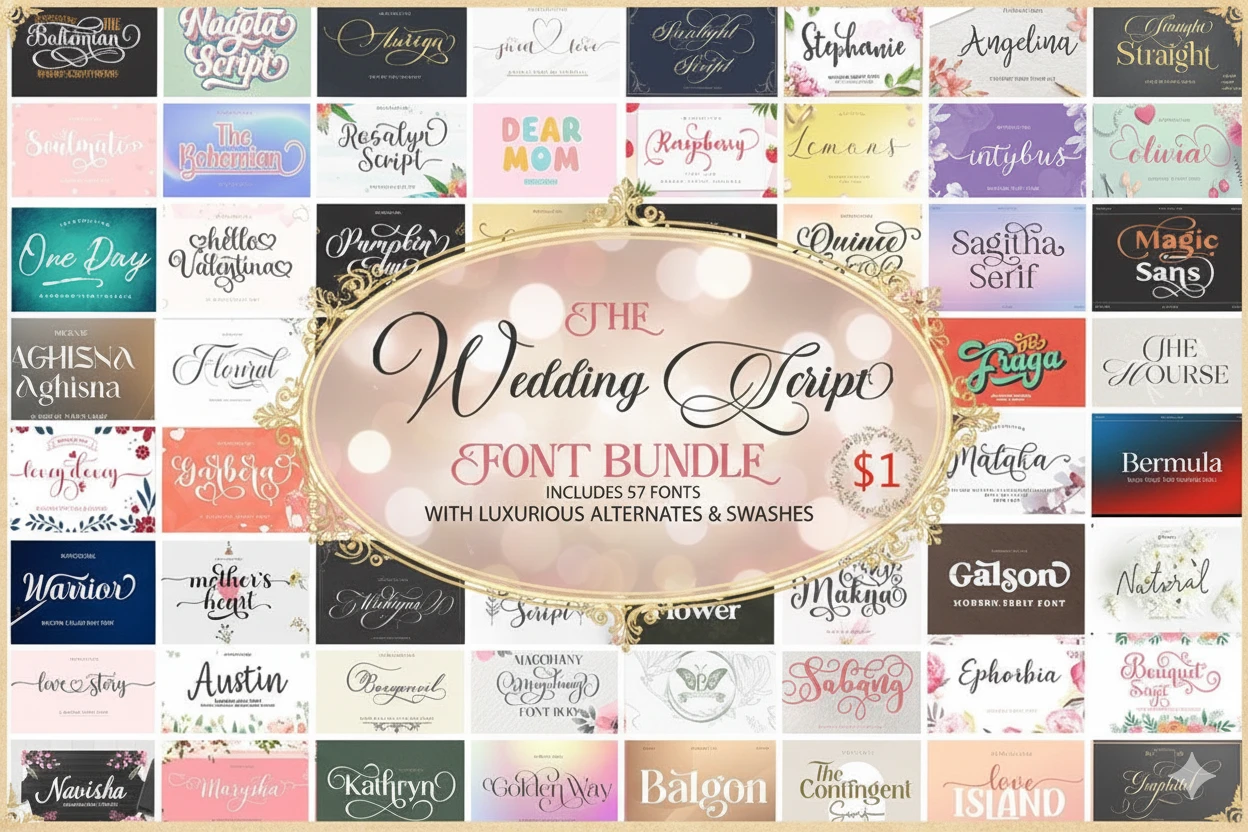
The Wedding Script Font Bundle – 57 Elegant Script Fonts
There’s something about wedding script fonts that instantly changes the mood of a design. Even a simple invitation layout can feel much more personal once you swap in the right lettering style. After going through this bundle, that was honestly the first thing I noticed — the fonts don’t feel overly artificial or too polished the way many large font packs do.
The Wedding Script Font Bundle includes 57 elegant script fonts designed for wedding invitations, branding, social media graphics, logo work, signage, packaging, and romantic typography projects.
What makes this collection stand out a bit more is the variety.
The bundle also includes:
- Elegant alternates
- Decorative swashes
- Smooth handwritten styles
- Classic calligraphy-inspired lettering
One detail I appreciated is that the fonts don’t all follow the exact same rhythm. In many large bundles, you end up with 40 fonts that basically look identical after a while. Here, some scripts are airy and delicate, while others have slightly heavier strokes that hold up better in print. That actually matters when you’re working on invitations, especially on textured paper or smaller card sizes.
These fonts work especially well for:
- Wedding invitations
- Bridal branding
- Event signage
- Save-the-date cards
- Logo design
- Product packaging
- Instagram quotes
- Cricut and crafting projects
If you design wedding stationery often, the alternates and swashes make a noticeable difference. You can create layouts that feel more custom without spending forever tweaking typography manually. A few fonts in the pack also pair nicely with minimal serif fonts, which is usually my go-to combination for modern wedding aesthetics.